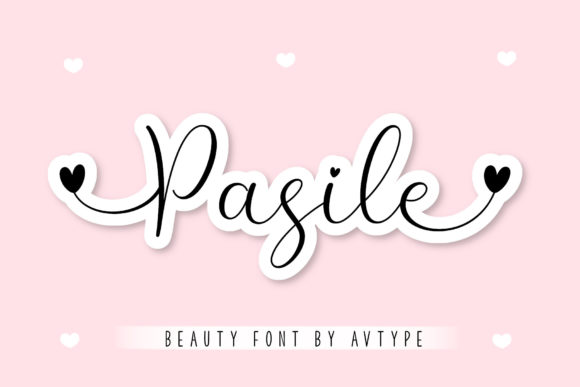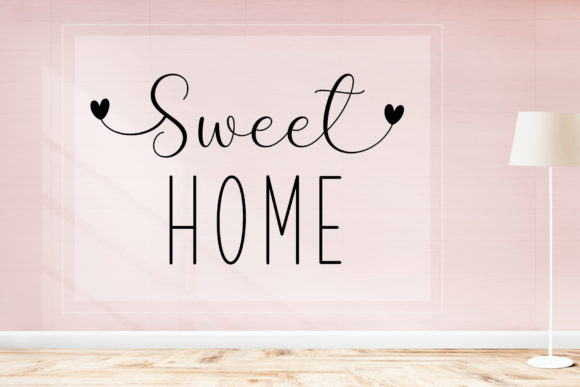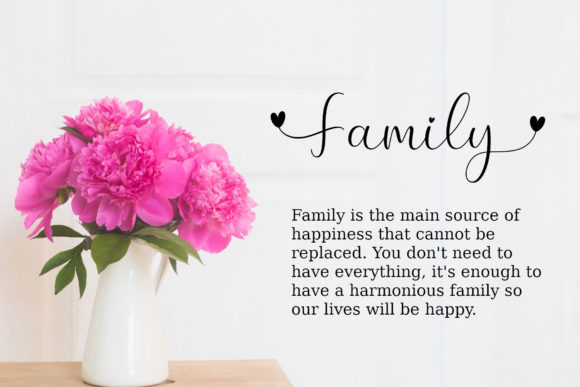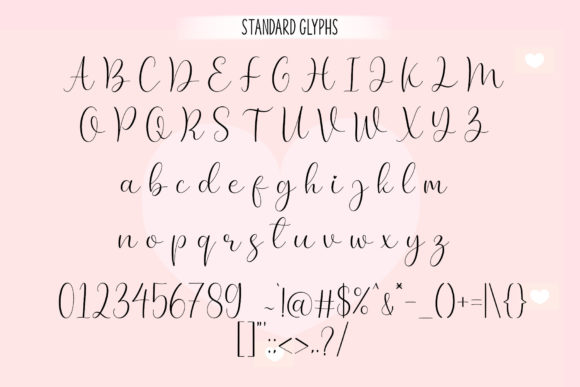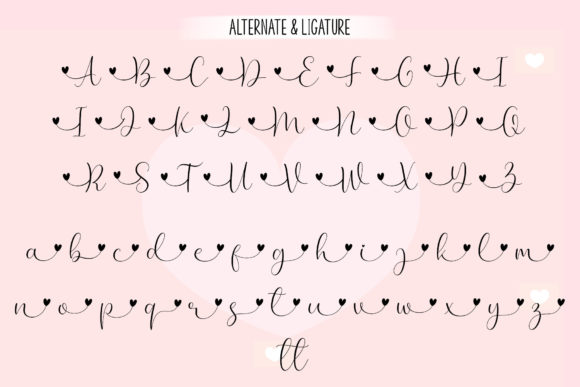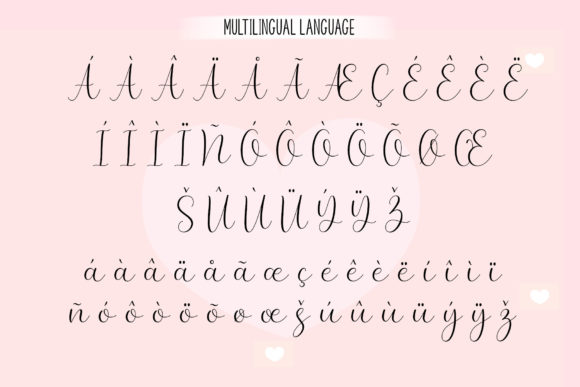
Pasile is a beautiful love themed script font. Use it for any design projects that require a charming appearance!This font is PUA encoded which means you can access all of the glyphs and swashes with ease!